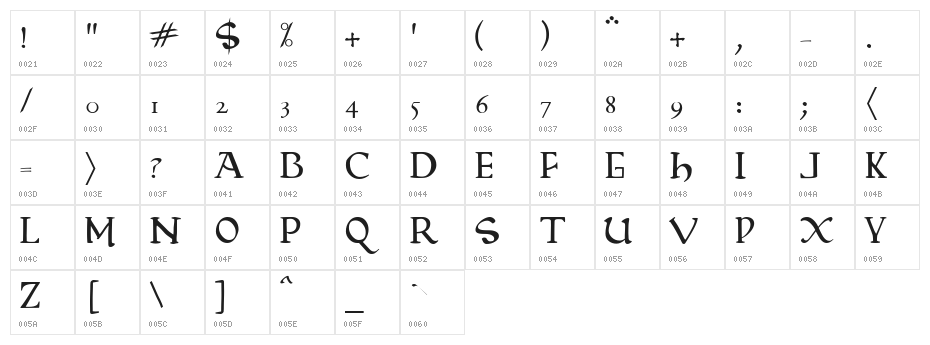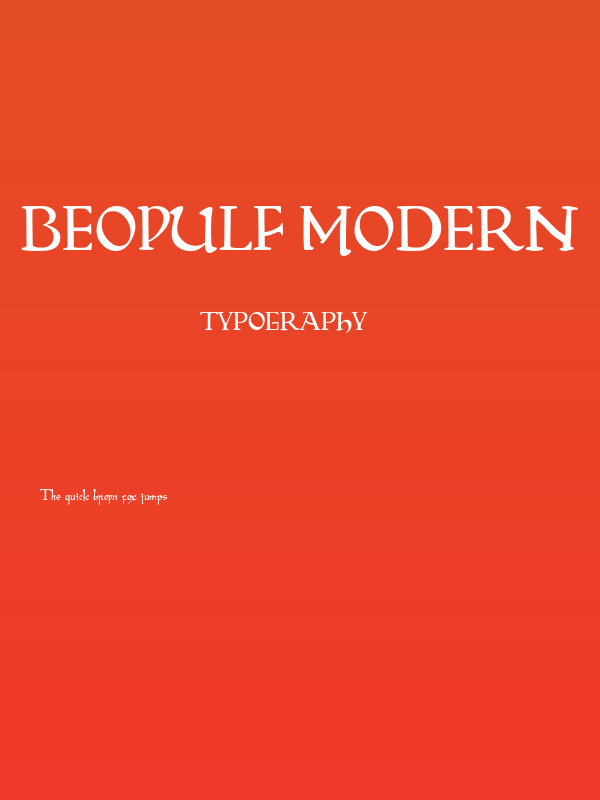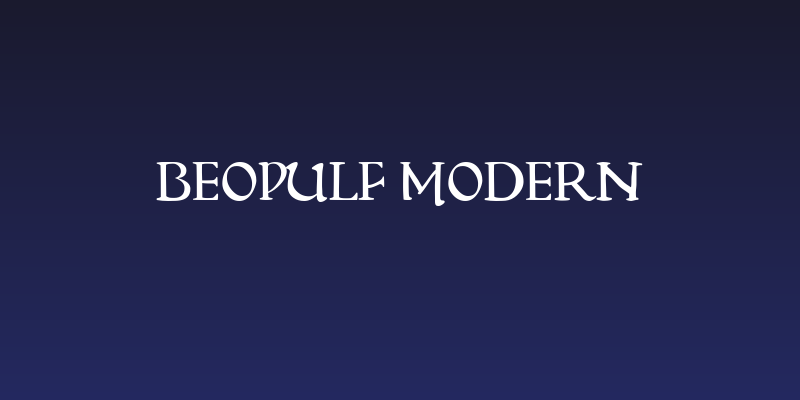
Beowulf Modern Font
Beowulf Modern Description
This font features a unique blend of modern and medieval influences, characterized by its sharp, angular serifs and distinctively curved strokes. The uppercase letters exhibit a bold presence with a slight flair at the terminals, while the lowercase letters maintain a consistent flow with occasional flourishes. The numerals are elegantly styled, maintaining the font's overall aesthetic. Special characters are crafted with attention to detail, complementing the font's distinctive style. This font's design is both striking and readable, making it suitable for a variety of creative applications.
| Proposed Projects | Ideal for fantasy book covers, historical themed posters, or branding for creative industries. |